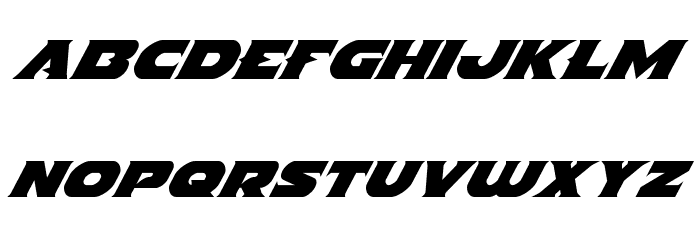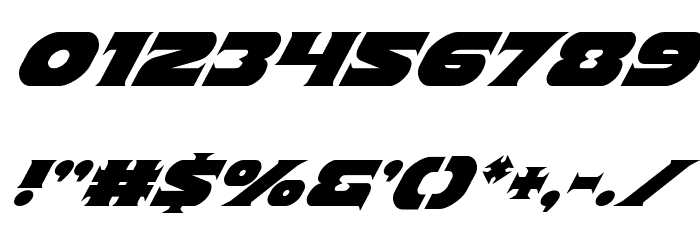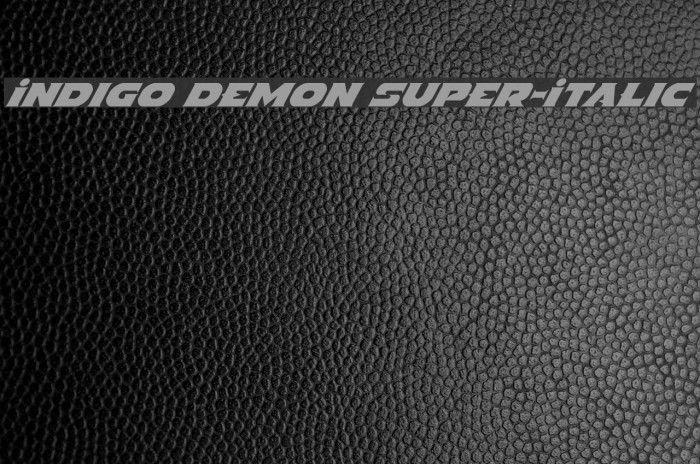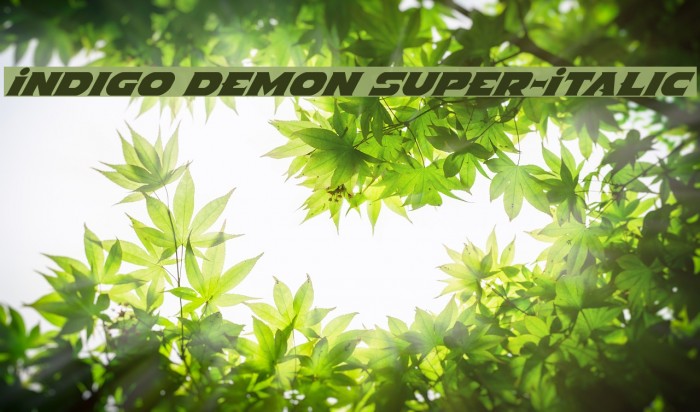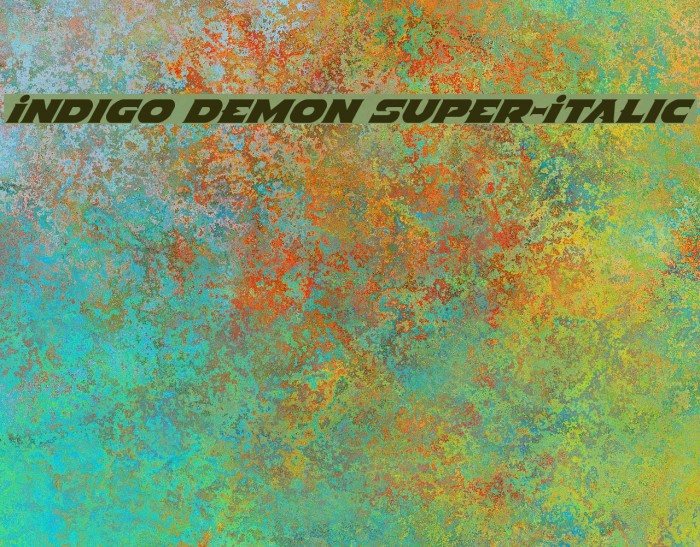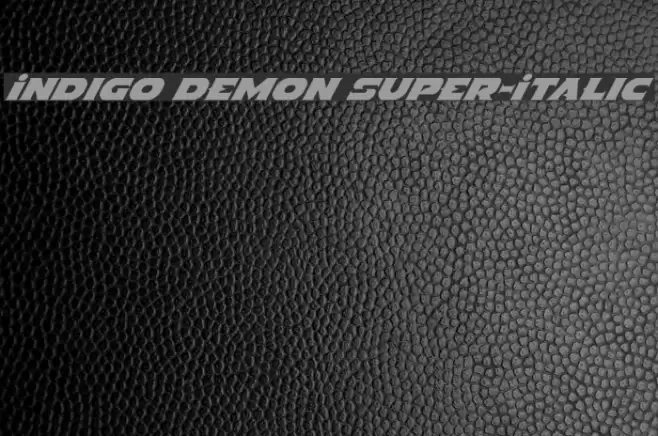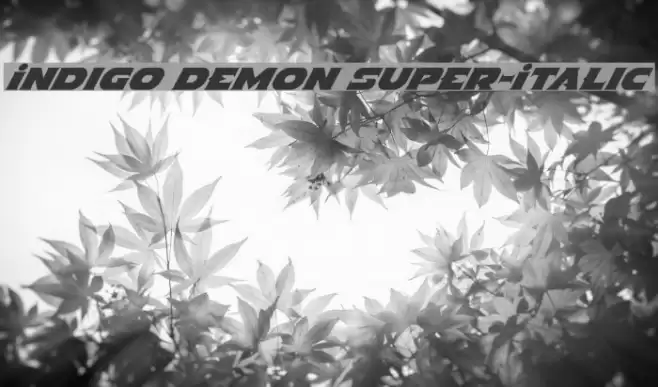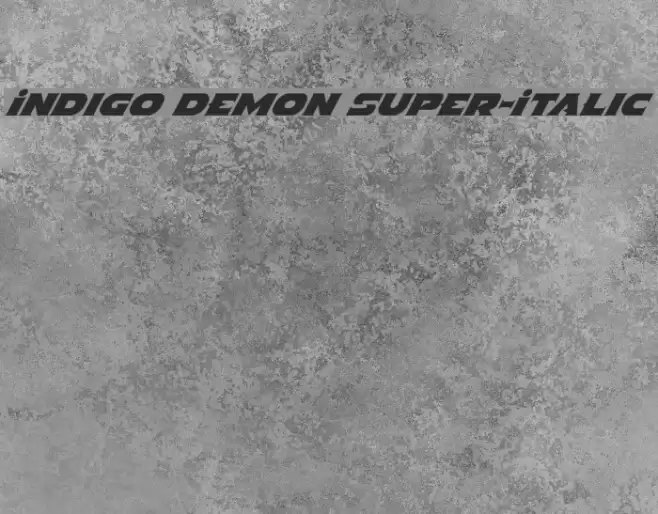
Indigo Demon Super-Italic Font
This font exhibits a bold and dynamic style with a strong italic slant, giving it a sense of motion and energy. The characters are thick and robust, with sharp angles and a slightly condensed form. The uppercase and lowercase letters maintain a consistent style, while the numerals and special characters integrate seamlessly, enhancing its cohesive appearance. The boldness and angularity of the design make it stand out, suitable for attention-grabbing headlines or impactful logos. Its unique style is both modern and slightly futuristic, appealing to projects that require a strong visual presence.
A bold, italicized font with sharp angles and a dynamic, modern style.
- Proposed Projects: Ideal for sports branding, action movie posters, video game titles, or any project needing a bold, energetic typeface.